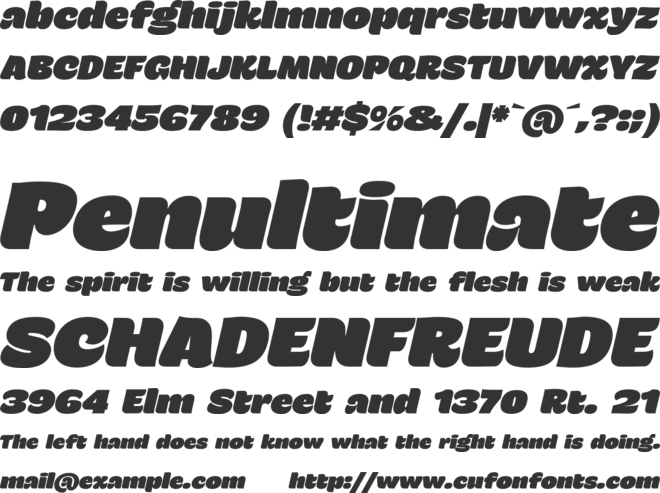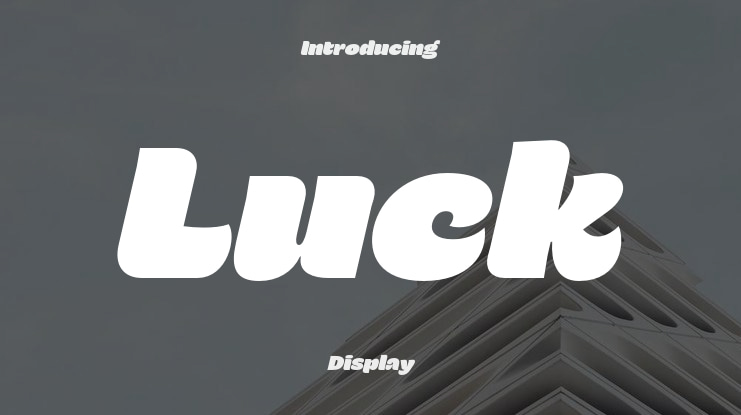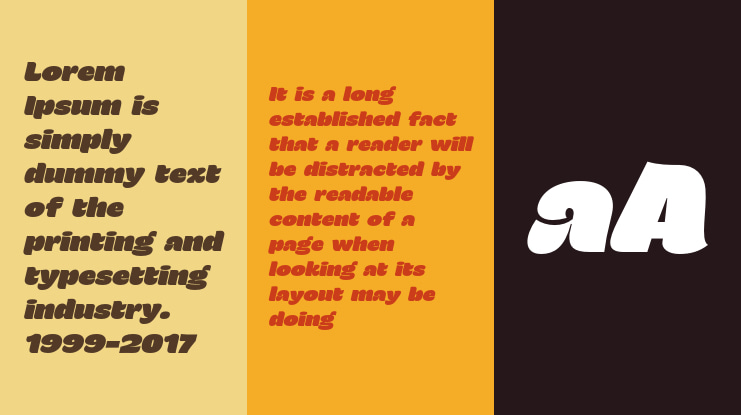
Luck Slant is a bold retro display typeface that captures the funky
energy of the ’70s with a modern twist. Its forward-leaning style adds
movement and excitement, making it perfect for eye-catching
headlines, posters, and logos. With chunky curves and a playful vibe,
Luck Slant brings vintage charm and bold personality to your creative
projects. Download this freebie and give your work a groovy, standout
look with effortless flair.